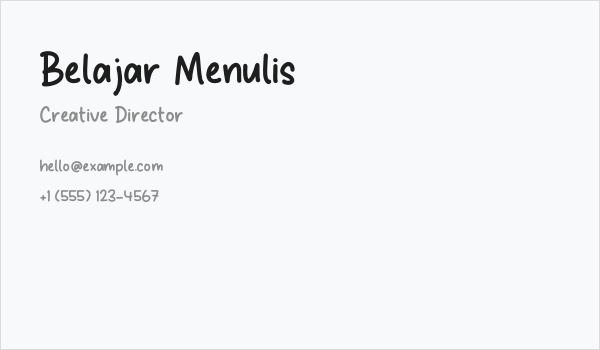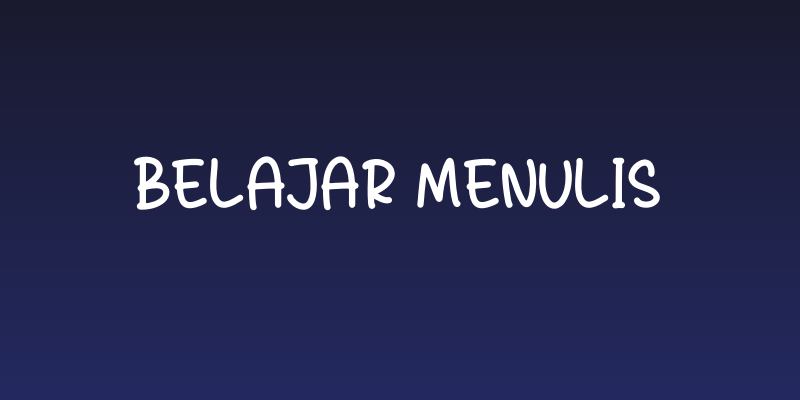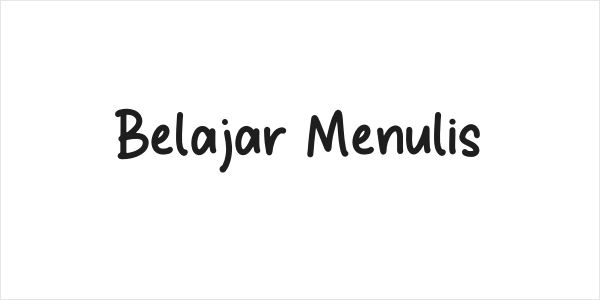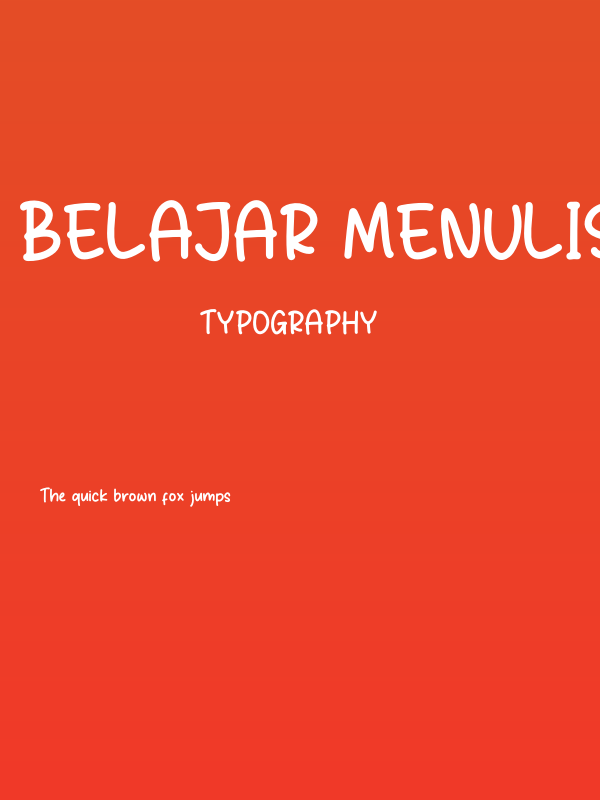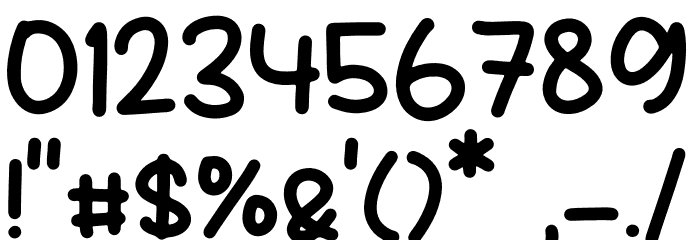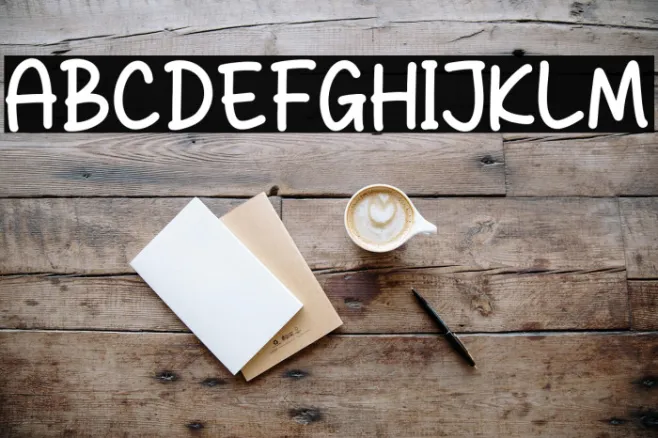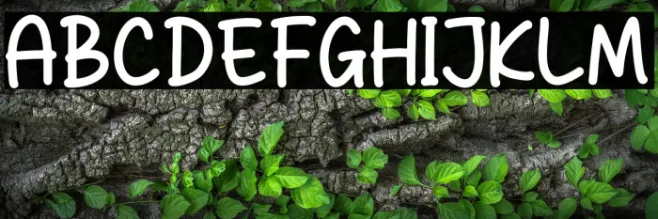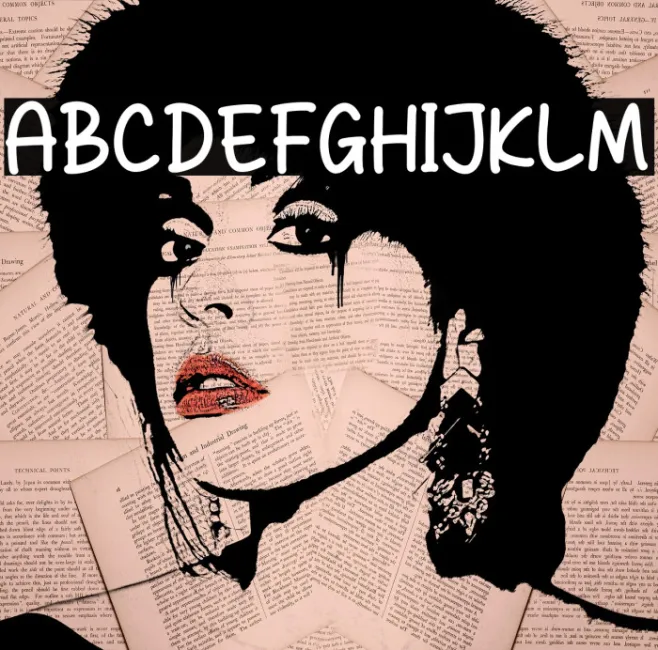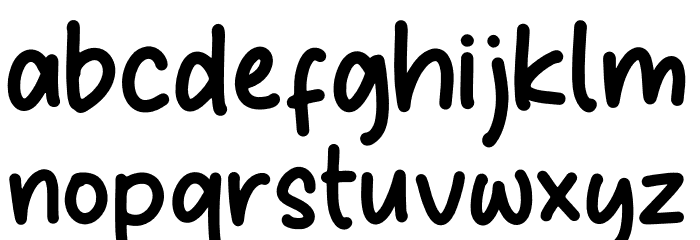
Belajar Menulis Font
Belajar Menulis Description
This playful and casual font features a handwritten style with smooth, rounded edges and a consistent stroke width. The characters are slightly irregular, adding a personal and friendly touch. The uppercase and lowercase letters are well-balanced, with a natural flow that mimics real handwriting. The numerals and special characters maintain the same informal style, making the font versatile for various uses. Its legibility and charm make it suitable for projects that require a personal or informal tone.
| Overall Style | Casual, Playful |
| Use Case | Headlines, Informal text, Personal projects |
| Proposed Projects | Ideal for children's books, greeting cards, personal blogs, and informal branding projects. |